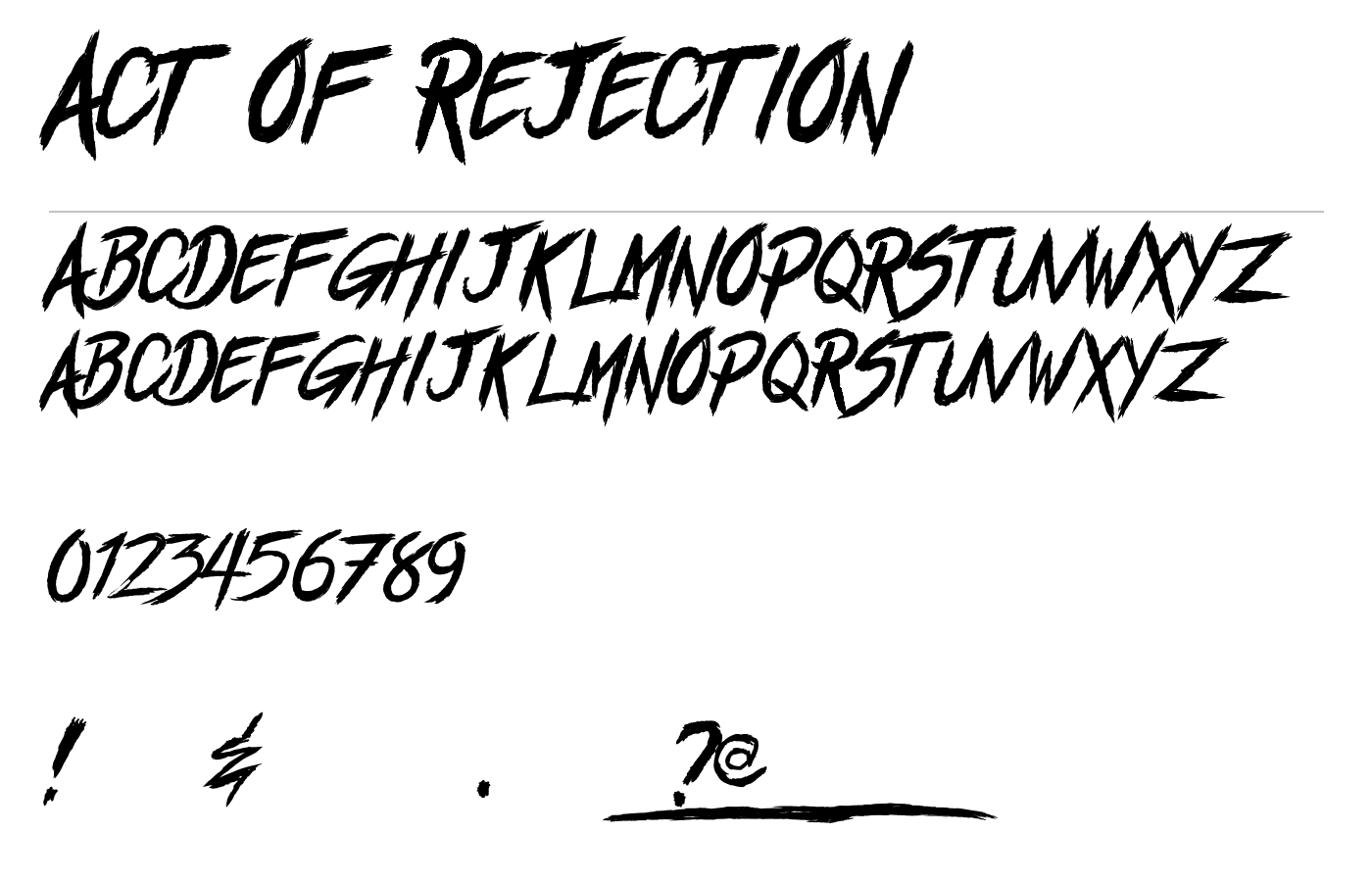
Act of Rejection is a bold, expressive handwritten font that captures raw energy with its rough, brushstroke texture and dynamic slant. Its tall, narrow letterforms and irregular edges give it a rebellious, edgy feel perfect for designs that need an impactful, gritty personality. This font works especially well in posters, logos, and creative projects where a strong, intense voice is needed.
Act of Rejection Font
About Act of Rejection Font